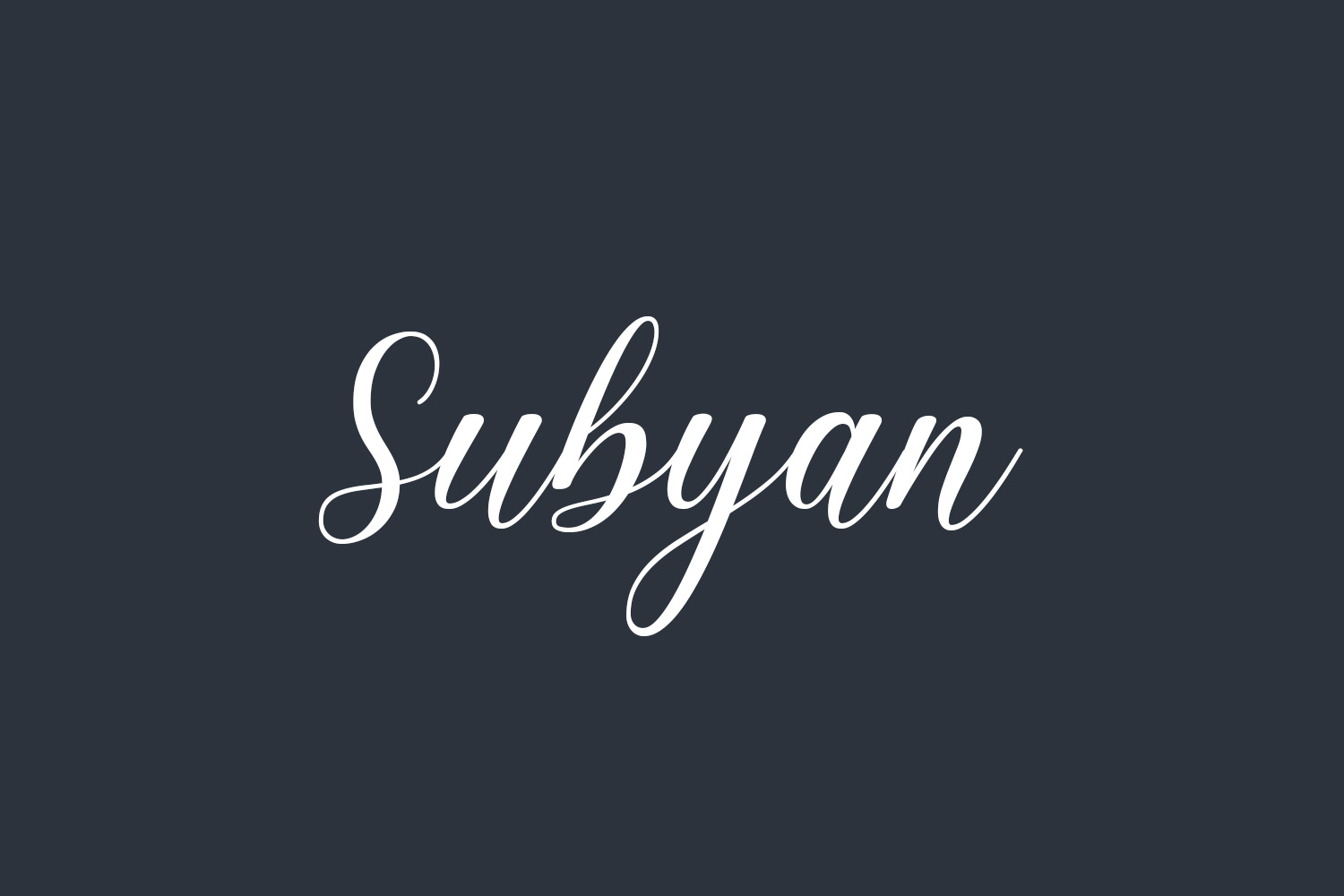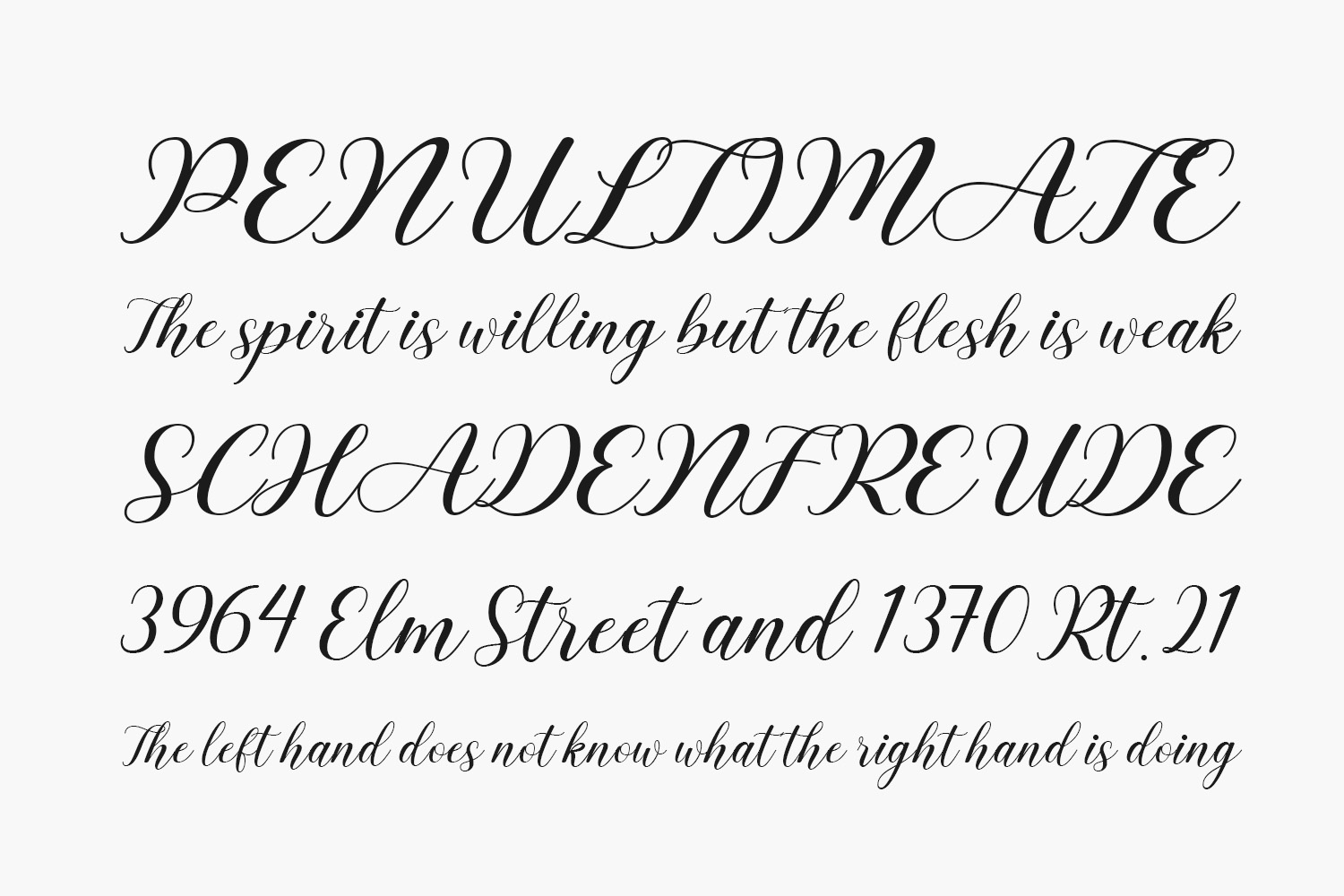
Subyan Free Font is a classic and fancy script with a dynamic feel. Fall in love with its unique swashes. Subyan Free Font was designed by Suby Studio and is free for personal use only. Please purchase the full version for commercial use.